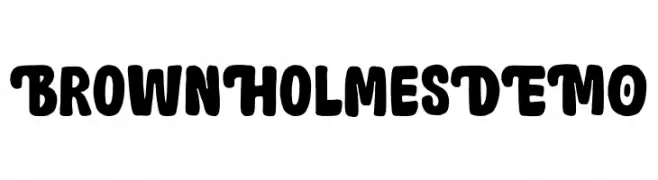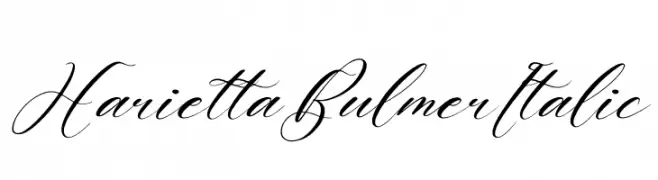
A playful, handwritten script font with dynamic, flowing lines.
A bold, italic font with a dynamic and energetic style.
A bold, geometric font with a modern, industrial style.
Bold, oblique font with sharp angles and thick strokes.
A bold, playful font with rounded edges and a whimsical flair.
A bold, geometric font with a modern, monospaced style.
A bold, expressive script font with a handwritten, fluid style.
An elegant, high-contrast script font with flowing, cursive letterforms.
An elegant script font with flowing, interconnected letters and classic calligraphic style.
An elegant, cursive handwritten font with flowing lines and sophisticated curves.